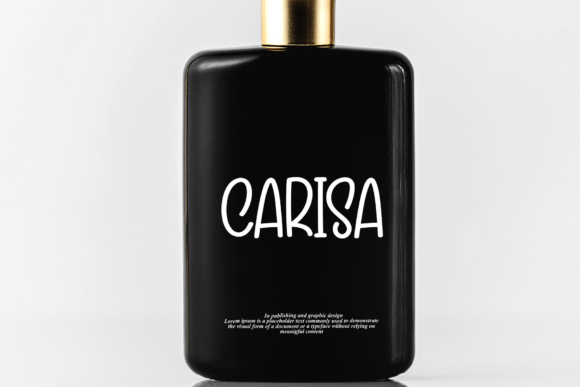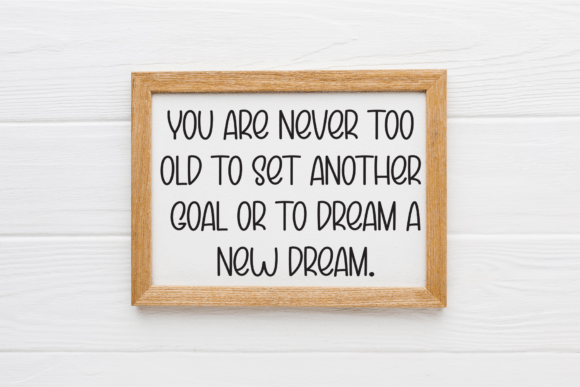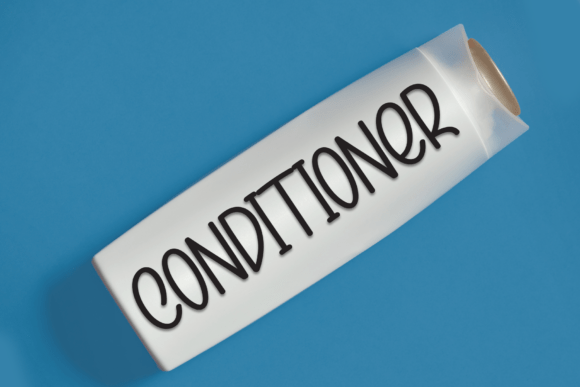
Bunny Spring Font
This display handwritten font bursts with personality and charm, capturing the warmth of real handwriting with bold, eye-catching strokes. Designed to stand out while maintaining a natural flow, it’s perfect for logos, social media graphics, posters, and anything that calls for a personal, expressive touch. Whether you're crafting a heartfelt quote or branding a creative product, this font brings authenticity and flair to your design.